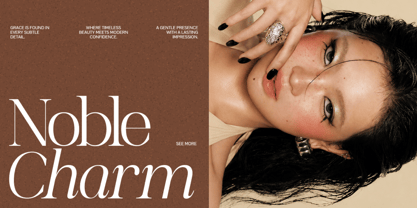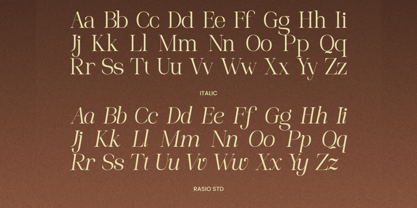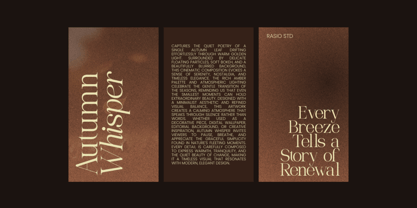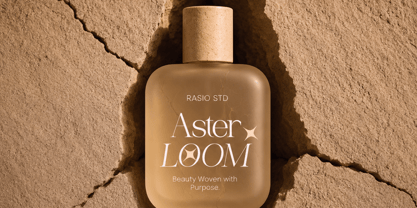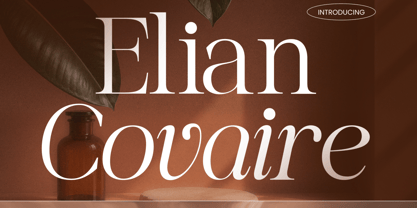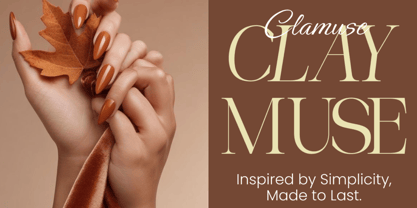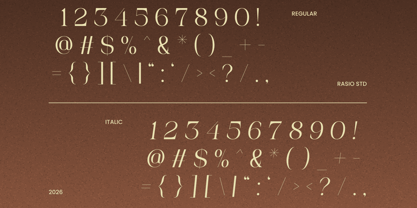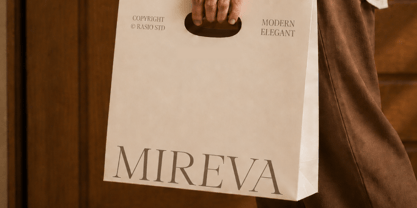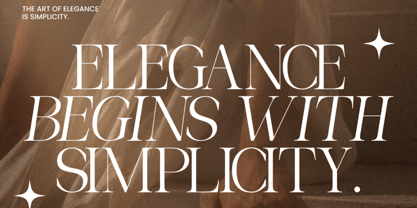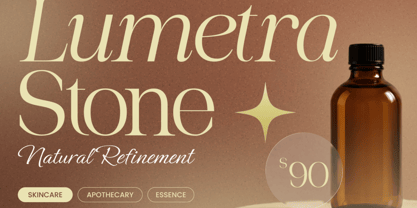
Elian Covaire
A família de fontes Elian Covaire foi desenhada por Fajar Indra e publicada pela Rasio Studio. Elian Covaire contém 2 estilos e opções de pacote familiar. Saiba mais sobre esta família
Elian Covaire is a refined modern serif typeface built around high-contrast letterforms, slender hairlines, sculpted thick strokes, and distinctive curved terminals. Its character design combines editorial sophistication with subtle decorative details, creating an expressive appearance that remains composed and highly recognizable. The family includes Regular and Italic styles, allowing designers to create contrast between prominent headlines and supporting typography while maintaining a cohesive visual language.
Relevance and Use Case is perfect for visual identities that depend on refined typography, graceful proportions, and a premium editorial atmosphere. Its high-contrast structure gives headlines a distinctive presence while the Regular and Italic styles provide useful contrast for titles, supporting phrases, captions, and emphasized text. The typeface can be incorporated into fashion lookbooks, beauty and cosmetics branding, boutique identity systems, magazine covers, editorial spreads, fragrance packaging, jewelry campaigns, invitation suites, luxury product labels, restaurant menus, photography portfolios, promotional graphics, and sophisticated social media artwork.